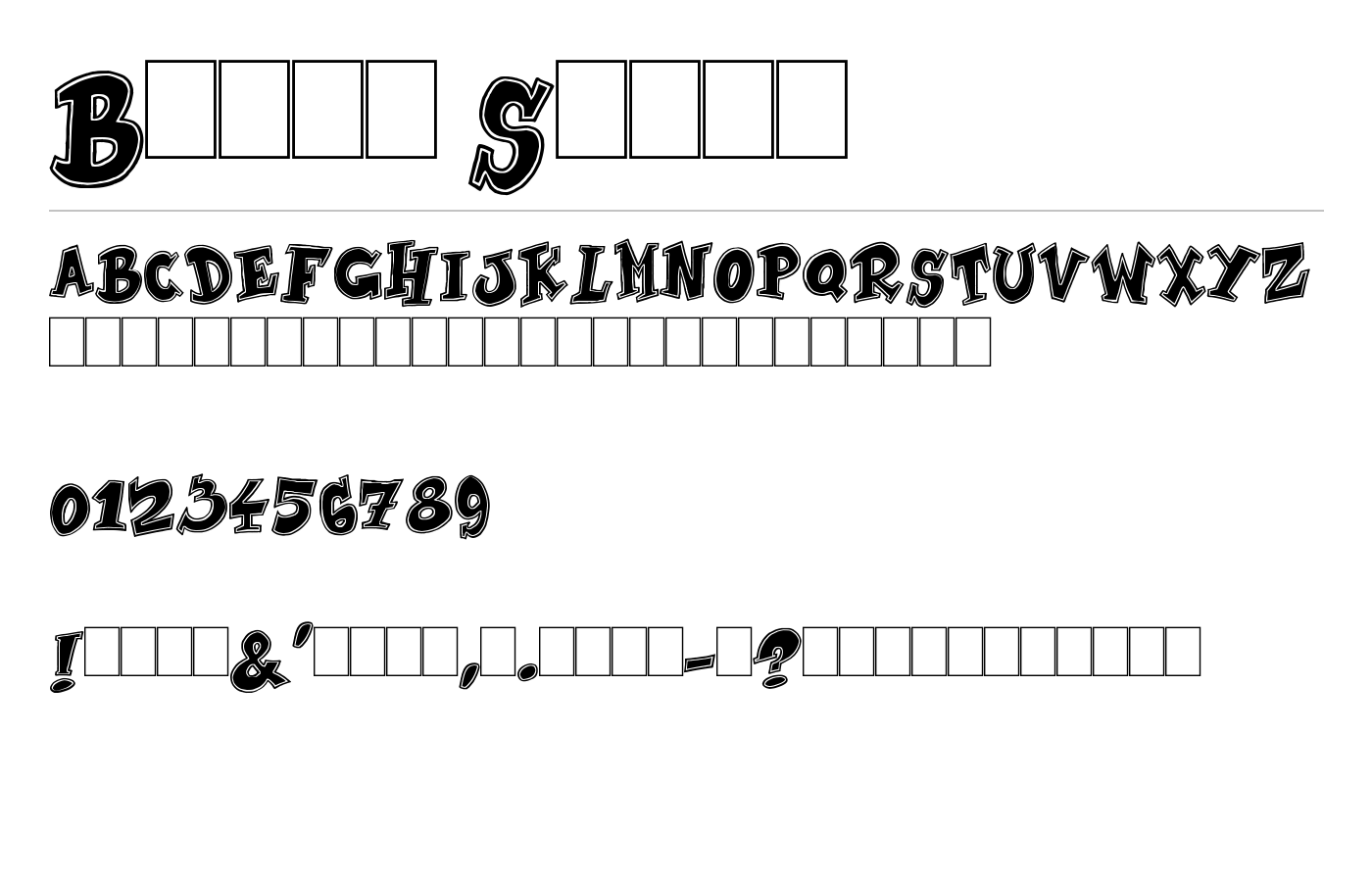
Brown Shoes is a playful and bold display font characterized by its thick, irregular letterforms with a hand-drawn, cartoonish vibe. Its chunky weight, energetic shapes, and casual outlines make it perfect for fun, informal branding, children’s content, or any design seeking a lively and approachable personality. This font shines in eye-catching headlines, posters, and creative packaging where a whimsical and friendly tone is desired.
Brown Shoes Font
About Brown Shoes Font